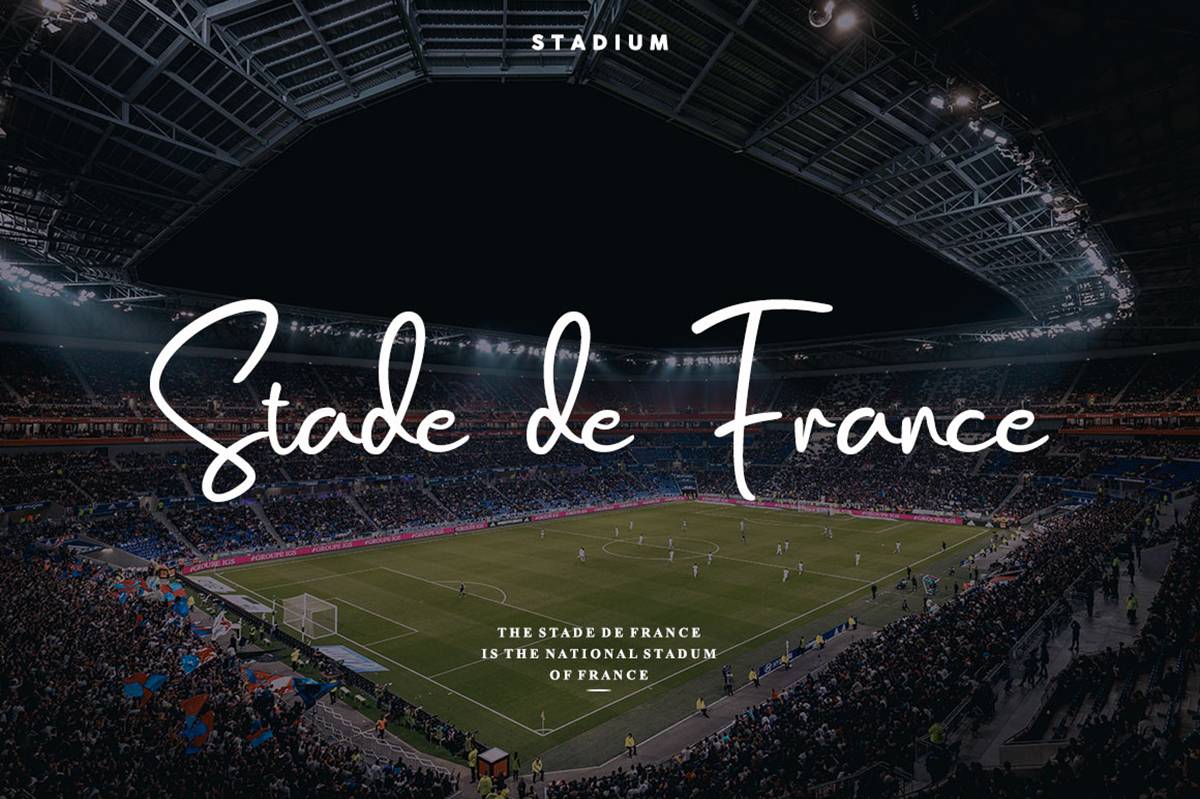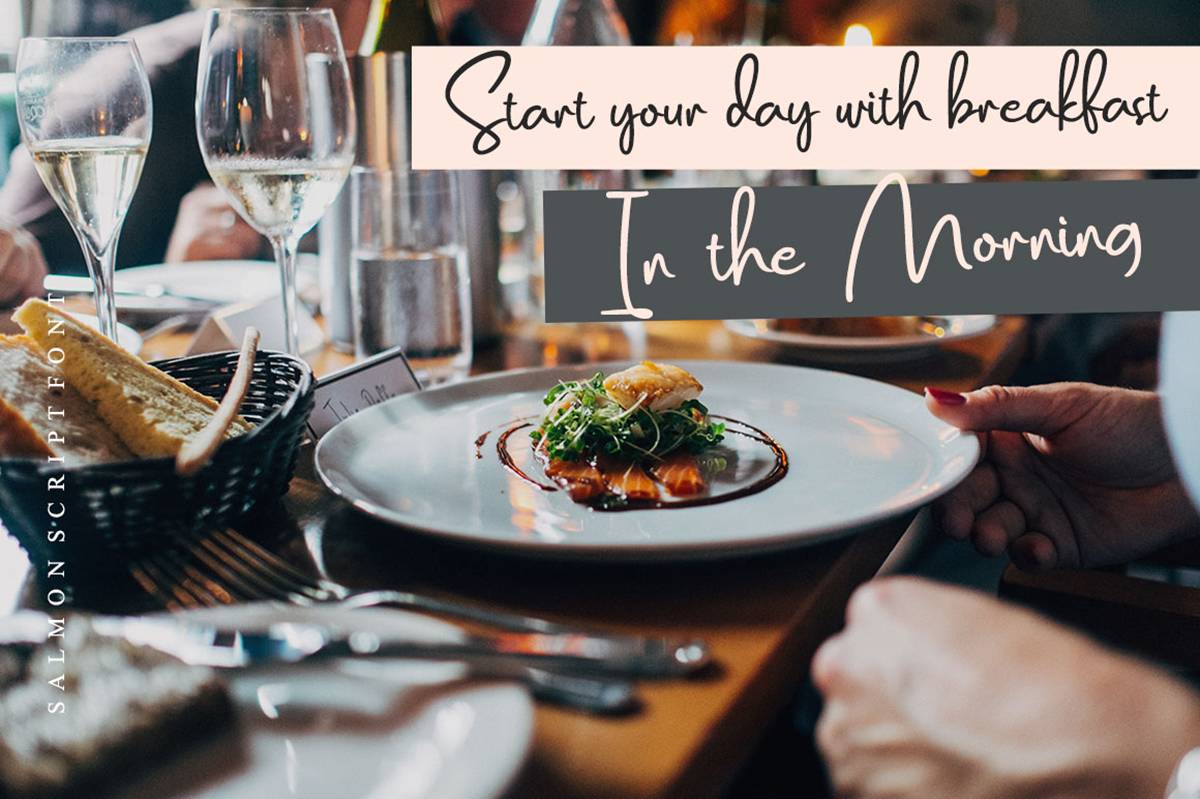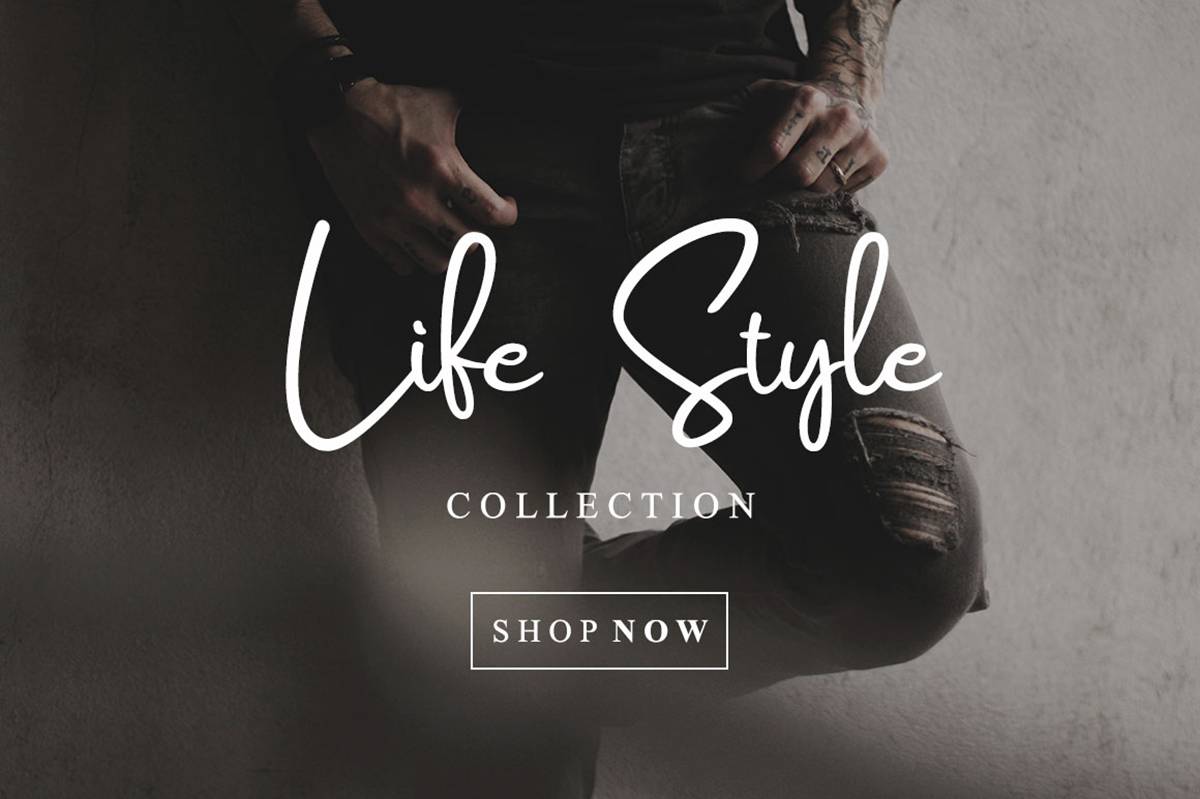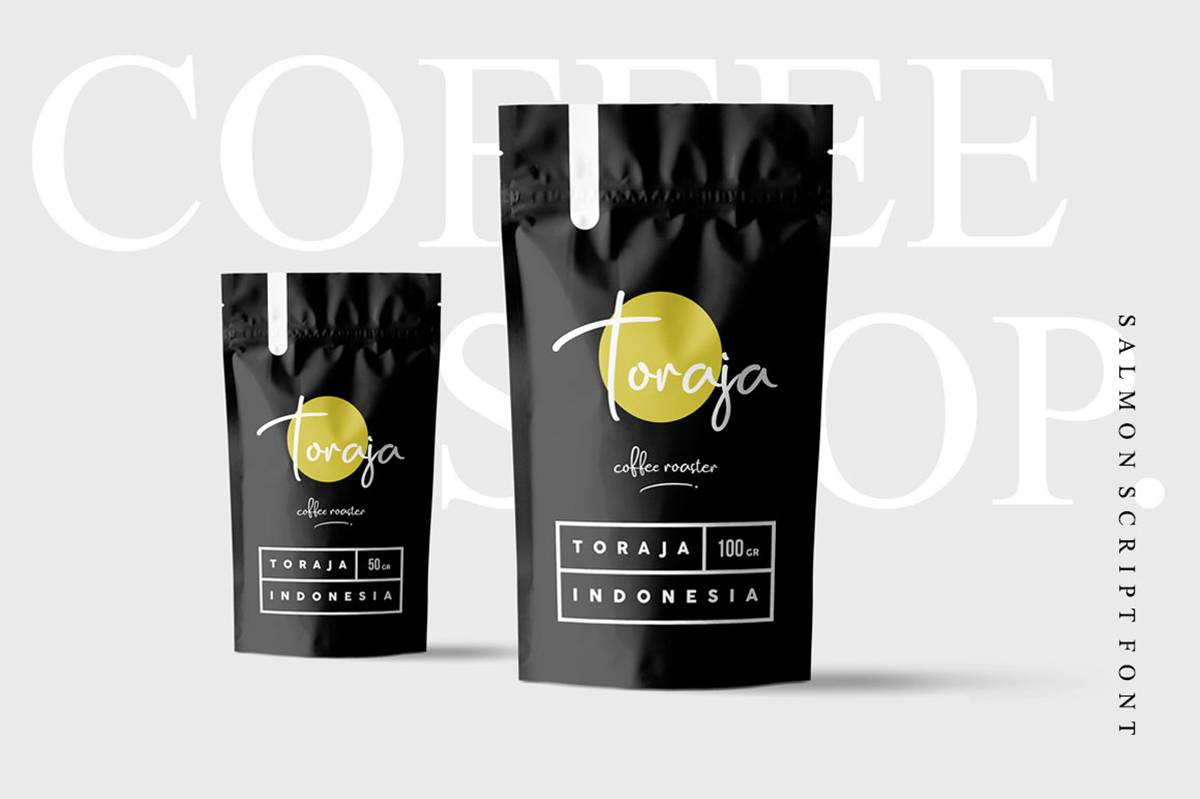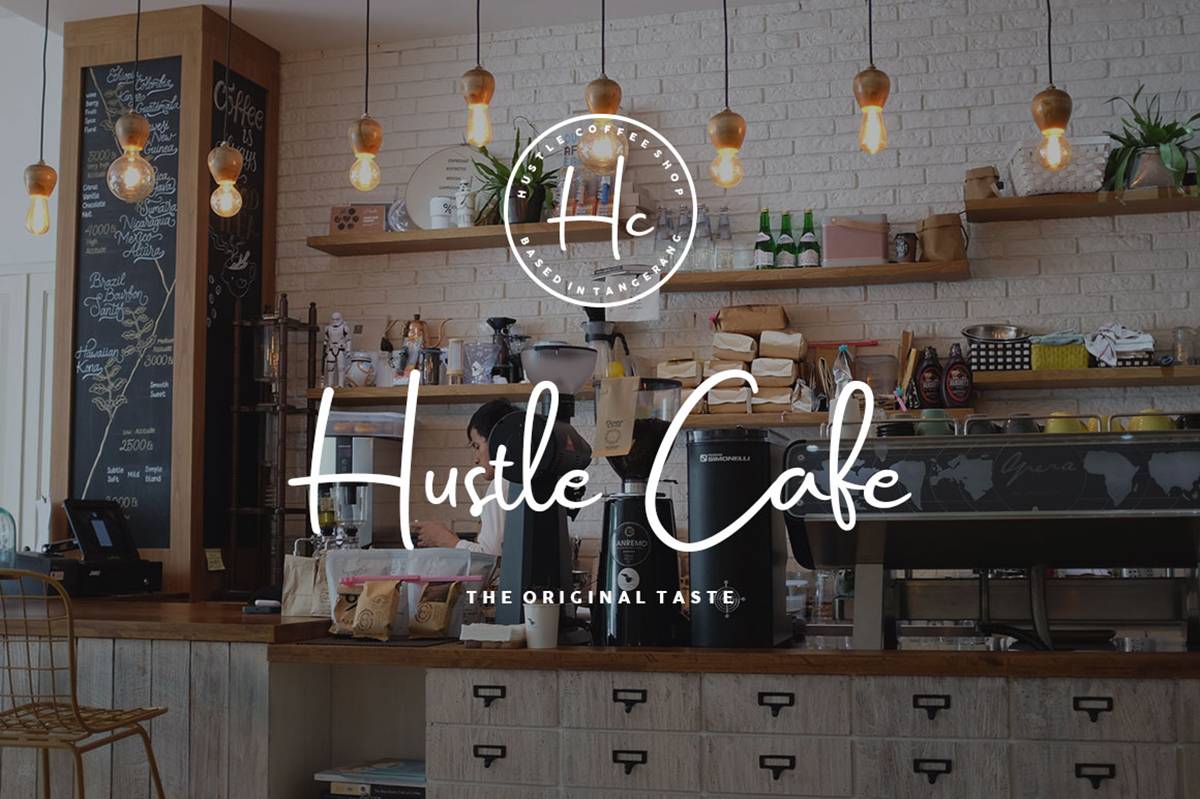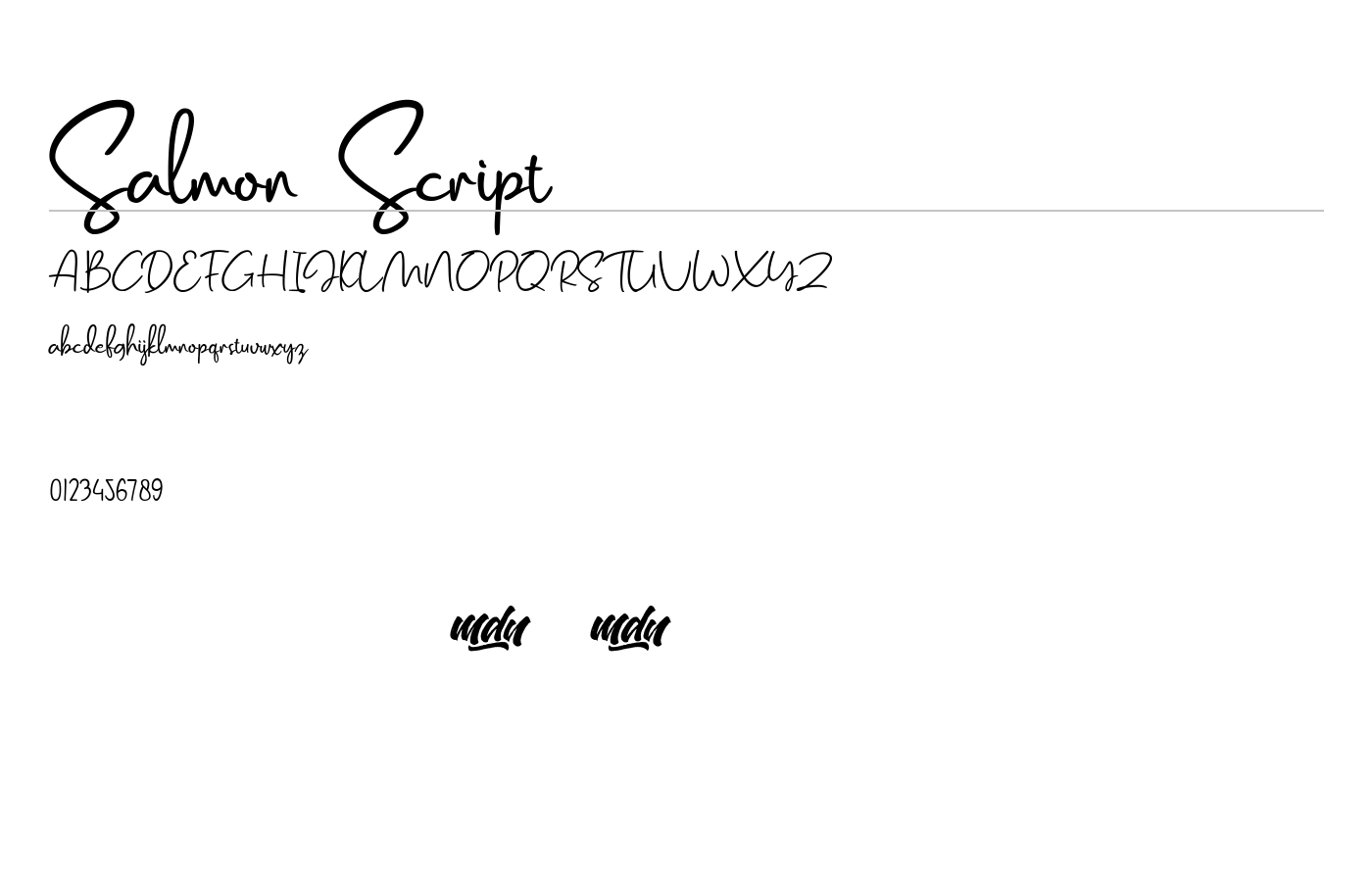
Salmon Script is a delicate and elegant handwritten script font featuring slender, flowing strokes with a casual yet refined feel. Its tall x-height and airy spacing make it both readable and stylish, ideal for adding a personal, artistic touch to invitations, branding, and creative design projects that seek warmth and sophistication. This font shines in contexts where a friendly, handcrafted aesthetic is desired, striking a perfect balance between modernity and charm.
Salmon Script Font
About Salmon Script Font
| Font family | Salmon Script Font |